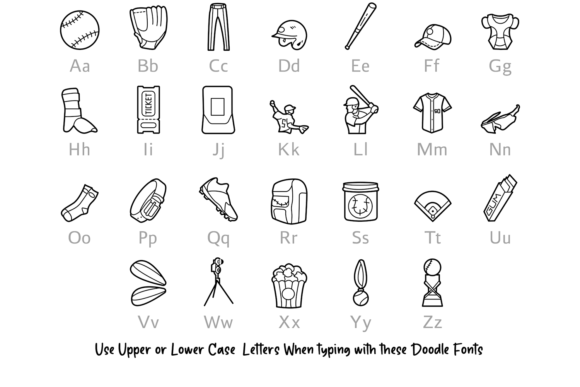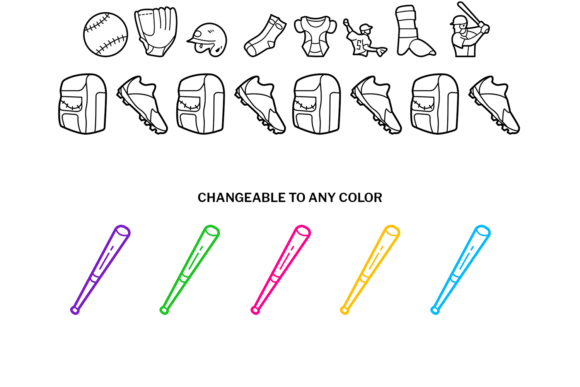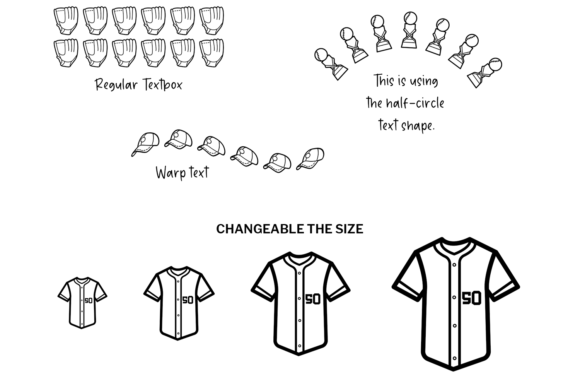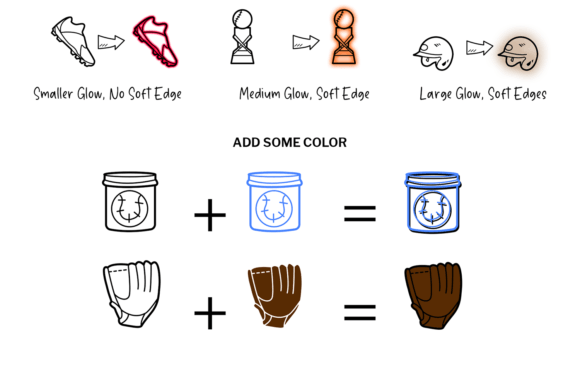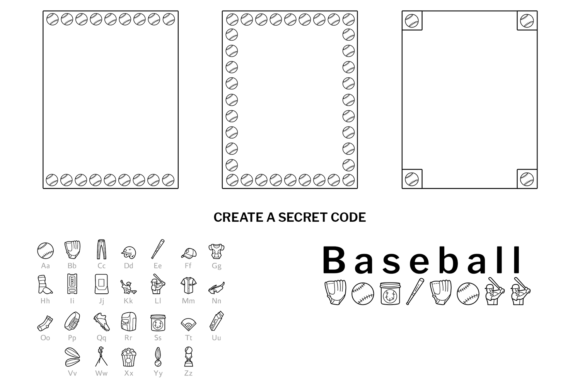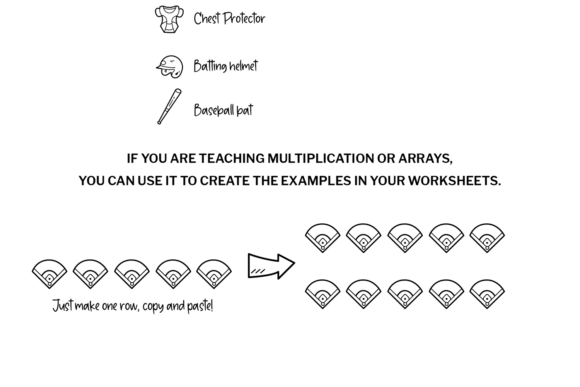
Step Up to the Plate with the Perfect Baseball Doodle Font
Designing a logo for your favorite baseball team, creating a poster for the big game, or simply adding some sporty flair to your merchandise – whatever the project, you’re sure to draw inspiration from the crack of the bat and the roar of the crowd. And when it comes to capturing the essence of America’s favorite pastime, one font stands out from the rest: the Baseball Doodle Font.
This sporty and playful dingbats font is a treasure trove of whimsical icons and symbols that will transport you to the sun-kissed ballparks of summer. With its bold, dynamic characters and hand-drawn quality, the Baseball Doodle Font is the perfect tool for designers looking to add a touch of fun and informality to their work.
Baseball Doodle Font Key Features
- Unique Doodle-Style Typography: The font features a playful, hand-drawn design with a baseball theme, perfect for sports-related projects.
- Customizable: The font’s doodle-style design allows for easy customization and manipulation to fit specific design needs.
- Perfect for Sports and Retro-Themed Projects: The Baseball Doodle Font is ideal for sports-related designs, such as baseball-themed logos, posters, and merchandise, as well as retro-themed projects that require a nostalgic feel.
Baseball Doodle Font Review
I recently had the chance to work with the Baseball Doodle Font, and I wanted to share my honest thoughts with you.
The Baseball Doodle Font has a lot of character and is perfect for projects that need a vintage or nostalgic feel. The font’s irregularities and hand-drawn style give it a unique charm that can add a lot of personality to your designs. It’s also a great choice for creating a sense of movement and energy, which is perfect for sports-related projects.
- Some characters may be difficult to read, especially at smaller font sizes.
- The font’s irregularities can make it challenging to use for projects that require precision and consistency.
- It may not be the best choice for projects that require a lot of text, as it can be visually overwhelming.
The Baseball Doodle Font is a fun and quirky font that can add a lot of personality to your designs. While it has some limitations, it’s perfect for projects that need a unique and energetic feel. If you’re looking for a font that will stand out from the crowd, the Baseball Doodle Font is definitely worth considering.
The Baseball Doodle Font is perfect for creating fun and playful designs, such as:
– Sports-themed graphics and logos
– Children’s book illustrations
– Event invitations and promotional materials
Is the Baseball Doodle Font available in different font styles or weights?
The Baseball Doodle Font is available in various font styles and weights, including bold, italic, and regular. You can also customize the font’s appearance using design software that supports font editing and manipulation.